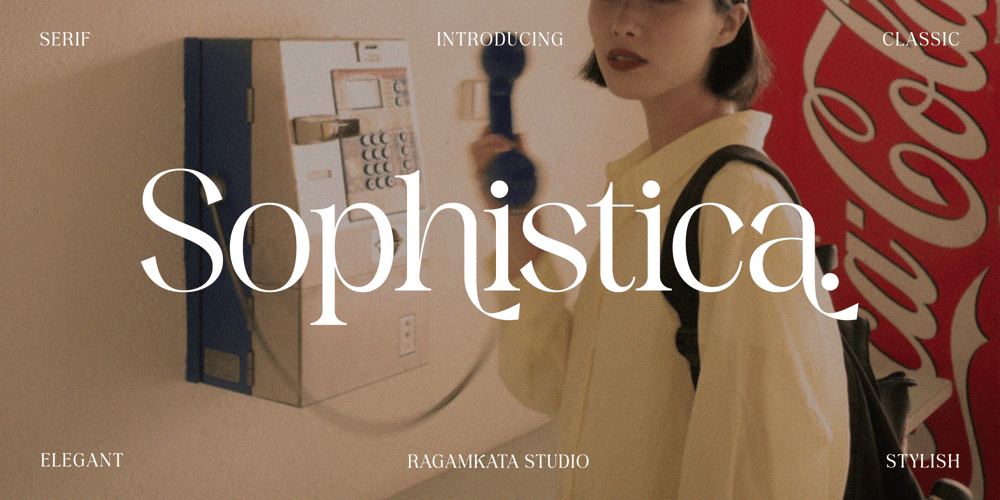
Sophistica
Sophistica font
Sophistica Font Family was designed by Yogiswhara Dio Prakoso Riadi and published by RagamKata. Sophistica contains 2 styles and family package options. Sophistica is a stylish and classic typeface and twist harmoniously together. The Eleanor font style will make you love designing and taking advantage of the cool designs for this font. Keep following us for updates on making further fonts